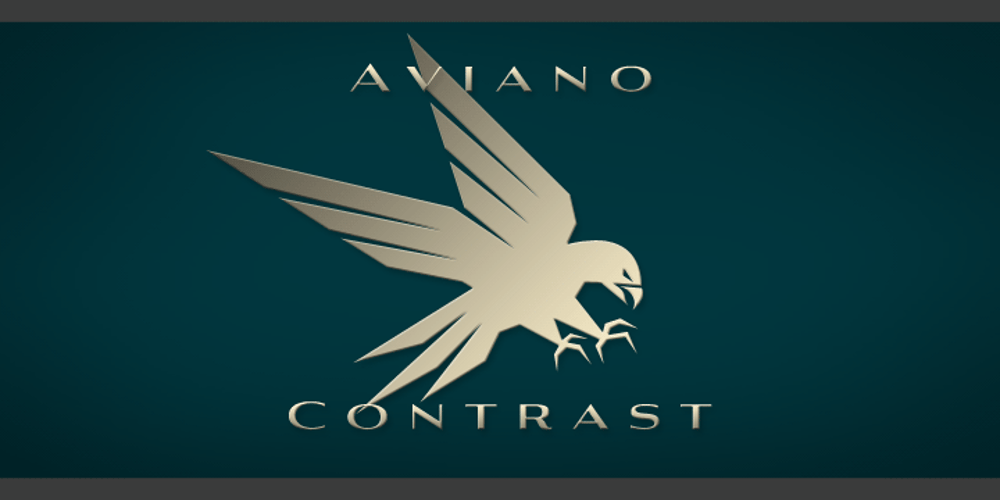
Aviano Contrast Font Family was designed by Jeremy Dooley and published by insigne. Aviano Contrast contains 6 styles and family package options. The Aviano series returns, refined and sophisticated with an extended, high-contrast sans-serif family. Aviano Contrast is a contemporary typeface radiating with luxury. It’s classic elegance makes it perfect for high-end applications such as cosmetic, jewelry or fashion brands. Aviano Contrast’s extended forms give the face a smart look, and the curves are carefully honed to be sinuous and seductive. This high-contrast face is in a class of its own, composed in the style of a classic Didone but lacking the typical serifs. Aviano Contrast comes in six different weights and is packed with OpenType features. Need swash forms? Ball terminals? Art Deco alternates inspired by the inscriptions and signage of the ’20s and ’30s? Aviano Contrast includes 230 alternate characters. Twelve style sets are available, including four complete sets of art deco-inspired alternates, small forms, swash, titling and a wide array of other alternates to make your designs unique. As a complement to these characters, Aviano Contrast also includes 40 discretionary ligatures for artistic typographic compositions. Please see the informative .pdf brochure to see these features in action. OpenType capable applications such as Quark or the Adobe Creative suite can take full advantage of the automatically replacing ligatures and alternates. This family also includes the glyphs to support a wide range of languages. The rest of the Aviano series pairs very well with this face. These include Aviano, Aviano Serif, Aviano Sans, Aviano Didone, Aviano Flare, Aviano Future and Aviano Slab.